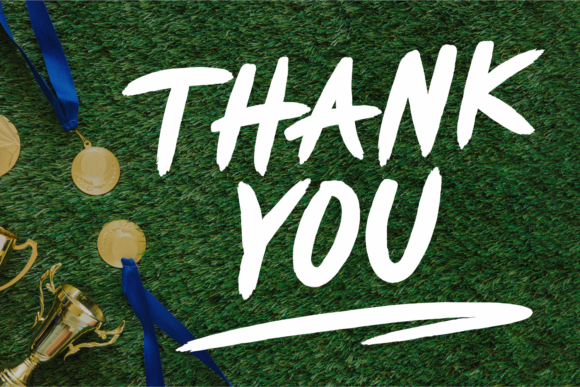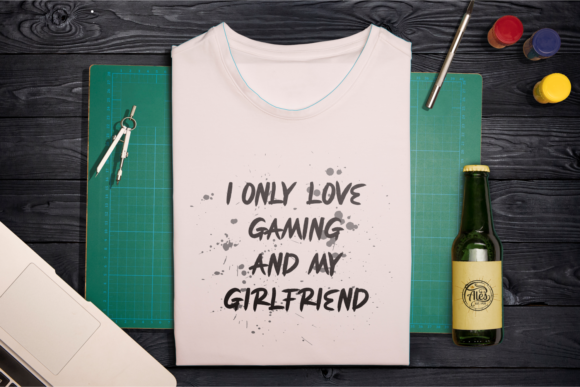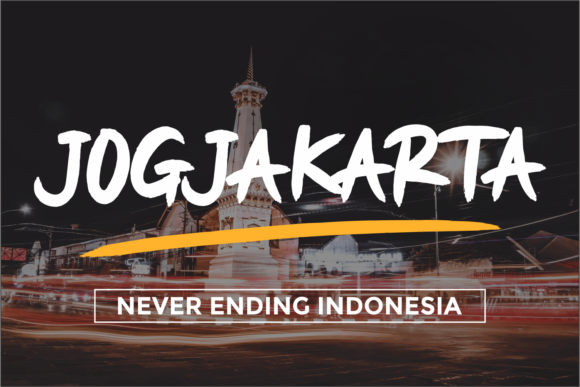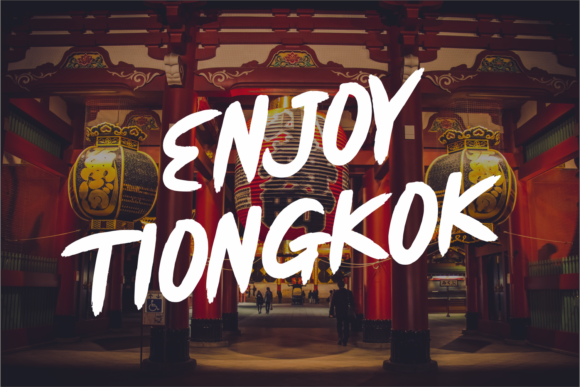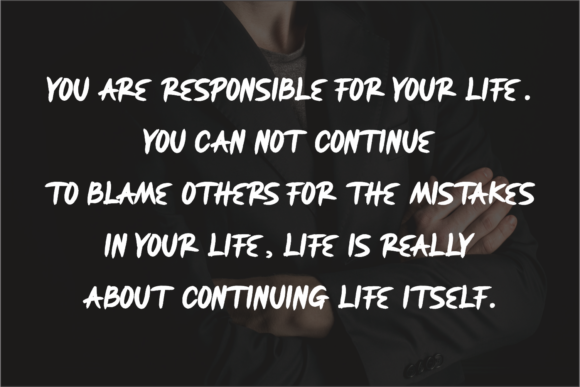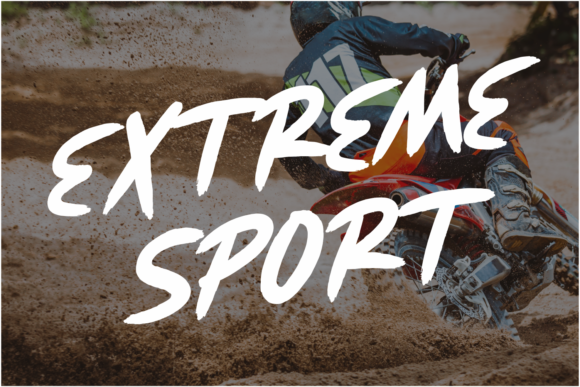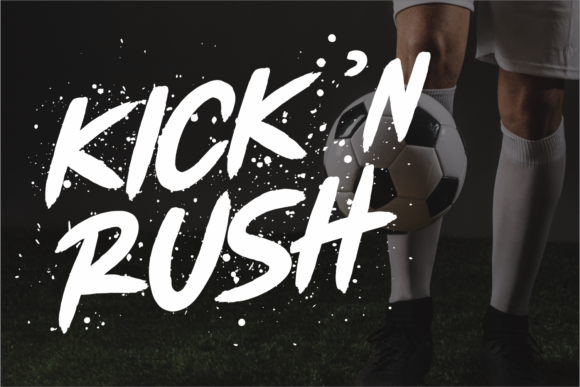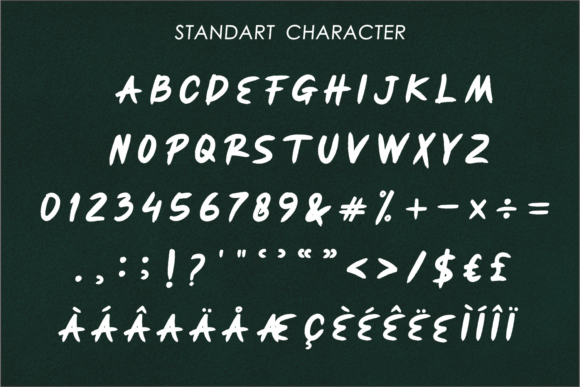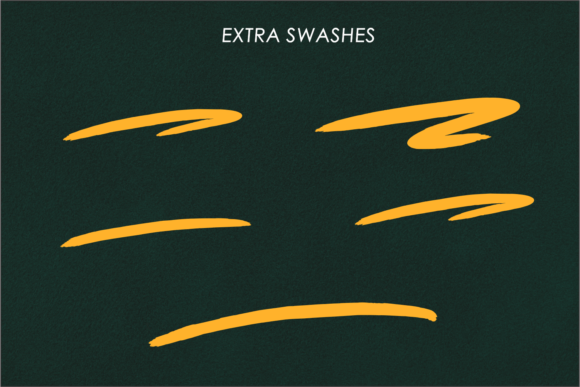
First Blood Font
About First Blood Font
First Blood is a casual, fun handwritten font, created by using a brush pen. Clean and a little bit quirky, this font is the perfect fit for all of your logos, branding, social media, and crafty DIY projects.